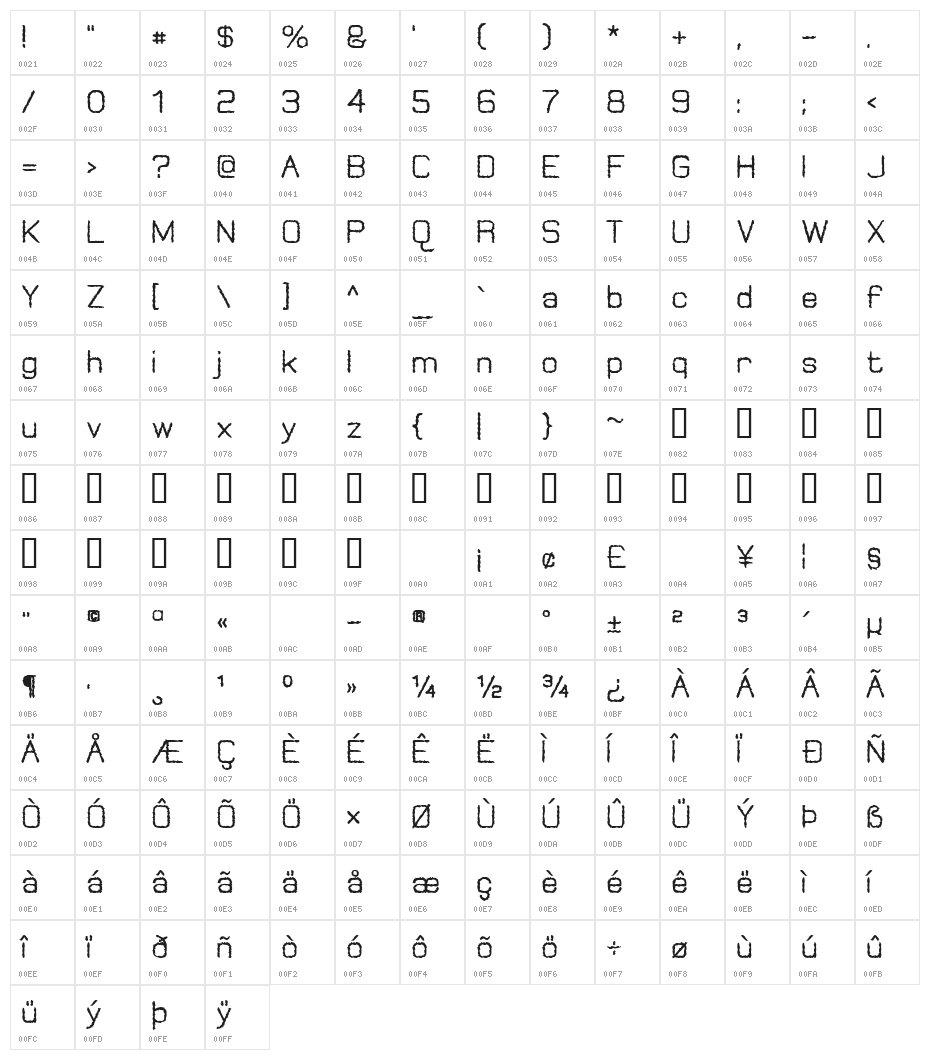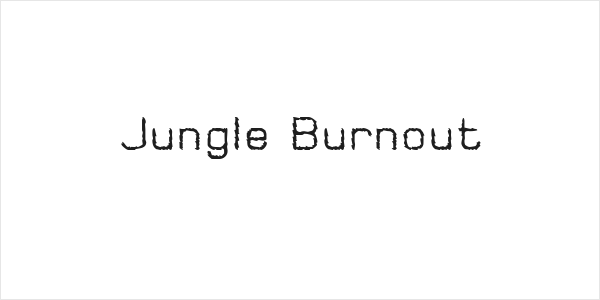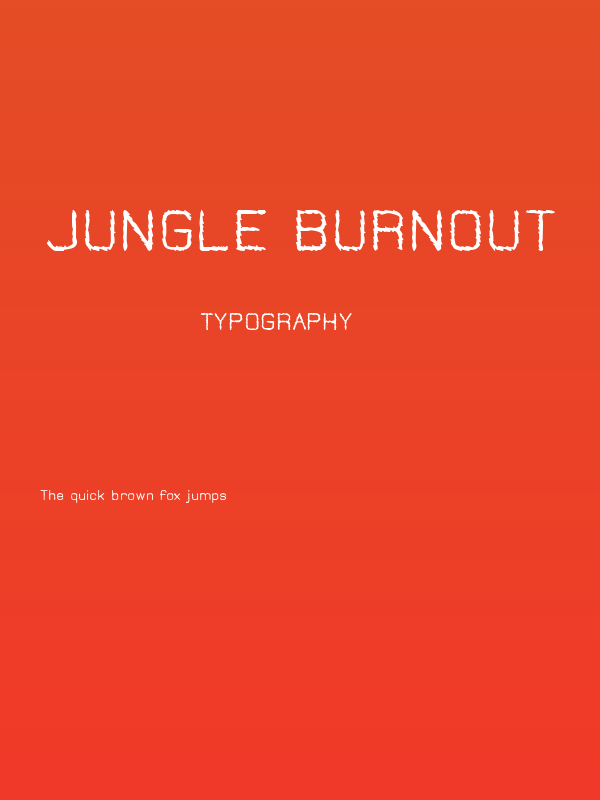
Jungle Burnout Font
Jungle Burnout Description
This font features a rugged, distressed appearance, reminiscent of natural textures or worn surfaces. The characters are bold and have an uneven, organic quality, giving them a unique, hand-crafted look. The uppercase and lowercase letters maintain a consistent style, with jagged edges and irregular strokes that suggest a sense of movement or energy. The numerals and special characters follow the same design principles, ensuring a cohesive appearance across all glyphs. This font's distinctive style makes it ideal for projects that require a bold, eye-catching typeface with a touch of raw, natural charm.
Proposed ProjectsIdeal for outdoor-themed branding, adventure posters, or rustic product packaging.